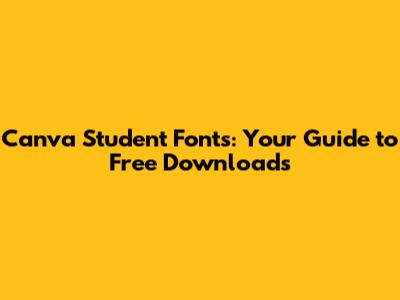
Hey guys! So, you're a student and you want to jazz up your projects with some killer fonts from Canva? You've come to the right place! Downloading fonts for Canva, especially when you're a student looking to save some cash, can seem a bit tricky. But don't sweat it! We're going to dive deep into how you can find and use awesome fonts to make your presentations, posters, social media graphics, and pretty much anything else you can dream up, look absolutely pro. We'll cover where to find those student-friendly options, how to download them legally, and some tips on using them effectively. Get ready to boost your design game, because this is your ultimate guide to Canva student fonts.
Why Fonts Matter for Student Projects
Alright, let's talk about why picking the right font is such a big deal, especially for us students. Think about it – when you're creating a presentation, designing a club flyer, or even just making a cool Instagram post for a school event, the font you choose is one of the first things people notice. Canva student fonts can totally change the vibe of your project. A bold, impactful font might be perfect for a headline that needs to grab attention, while a clean, minimalist font could be ideal for body text to ensure readability. Using a variety of fonts correctly can add personality, professionalism, and visual interest, making your work stand out from the crowd. Imagine a history presentation with a fancy, old-timey font versus a science project with a sleek, modern typeface – the font instantly communicates something about the subject matter. It’s not just about looking pretty; it’s about effective communication. A poorly chosen font can make your text hard to read, distract from your message, or even give off the wrong impression. For example, using a super playful, script font for a serious academic paper is probably not the best move, right? On the other hand, a serious, stuffy font might not be what you want for a fun, creative project. Canva offers a huge library of fonts, and knowing how to navigate it to find those perfect student fonts can save you tons of time and effort. We're talking about fonts that are versatile, stylish, and, most importantly, help you tell your story more effectively. So, let's get into how you can leverage these design elements to make your student work shine.
Finding Free Fonts in Canva for Students
Now, the big question: where do you find these awesome Canva student fonts? The great news is that Canva has a massive library of free fonts that are accessible to everyone, including students. You don't always need a premium account to access the good stuff! When you're in the Canva editor, look for the 'Text' tab on the left-hand side. Click on that, and you'll see a bunch of default text options. Click on one, and then a font dropdown menu will appear at the top of the editor. This is your gateway to hundreds, if not thousands, of fonts. You'll see a search bar here too, which is super handy. You can type in keywords like 'modern', 'script', 'bold', 'playful', or even specific font names if you know them. What's really cool is that Canva often categorizes fonts or gives you suggestions based on your search. For students, focus on fonts that are clear and readable, especially for academic work. Look for sans-serif fonts (like Arial, Lato, Montserrat) for a clean, modern look, or serif fonts (like Times New Roman, Georgia) if you want a more traditional or sophisticated feel. Script fonts can be great for titles or accents, but use them sparingly for body text as they can be hard to read. Keep an eye out for the 'free' label on fonts – most of the ones you see will be available to you without any extra cost. While Canva Pro does unlock even more fonts, the free library is incredibly robust and more than enough for most student projects. Experiment! Click through different fonts, see how they look with your text, and don't be afraid to try something a little different. The key is to explore the options available directly within Canva first, as they are already optimized for use on the platform and generally have broader licensing for personal and educational use. Remember, the goal is to find fonts that enhance your message, not distract from it. So, start clicking, searching, and exploring – your perfect font is waiting!
How to Download and Upload Fonts to Canva (Legally!)
Okay, so you've found some amazing fonts outside of Canva that you absolutely need to use. Maybe you found a cool free font on Google Fonts, Font Squirrel, or DaFont. The crucial part here is understanding how to download fonts for Canva and upload them legally. Most free font sites offer fonts under licenses that allow for personal and sometimes even commercial use, but it's always essential to check the specific license agreement for each font. For students, you're usually safe with fonts licensed for personal use, which covers your school projects. When you download a font from an external site, it typically comes as a .zip file. You'll need to extract this file to get the actual font file, which is usually a .ttf (TrueType Font) or .otf (OpenType Font) file. Now, here's where it gets interesting: Canva offers a way to upload your own fonts, but this feature is primarily available for Canva Pro users. Yes, you read that right. If you're on the free Canva plan, you can't directly upload custom fonts. However, don't despair! There are workarounds, and more importantly, you can use the vast library of free fonts that Canva already provides. If you do have Canva Pro, here's the magic: Go to your Brand Kit. You'll see an option to 'Upload a Brand'. Click on that, and you can upload your font files (.ttf, .otf, .woff). They'll then be available in your font selection menu whenever you're designing. For those on the free plan, focus your energy on finding the best free fonts within Canva's library. Seriously, it's massive! You can search by style, theme, or keyword and find incredible options. If a specific project absolutely requires a font not available in Canva, and you have Canva Pro, then uploading is your route. But for 99% of student needs, the built-in free library is your best friend. Always prioritize using Canva's integrated fonts to ensure you're compliant with licensing and to keep things simple. If you're ever unsure about a font's license, it's better to stick with Canva's provided options to avoid any potential issues.
Popular Font Categories for Student Designs
Let's dive into some of the coolest font categories that are perfect for Canva student fonts and will make your projects pop! When you're browsing Canva, or even when you're looking for external fonts to potentially upload (if you have Pro), thinking in categories can really speed up your search and help you find the perfect vibe.
Modern & Minimalist Fonts
If you want your designs to scream sleek, clean, and sophisticated, then modern and minimalist fonts are your go-to. These fonts typically feature clean lines, simple shapes, and a lack of unnecessary embellishments. Think sans-serif styles like Montserrat, Lato, Open Sans, Poppins, and Raleway. These are fantastic for presentations where readability is key, for websites, or for any design that needs to convey a sense of professionalism and order. They work beautifully for academic papers, reports, or even just clean-looking social media graphics. Montserrat, for example, is a geometric sans-serif that feels very contemporary and friendly. Lato is another excellent choice, known for its warm and semi-rounded feel, making it highly legible. Poppins is also super popular, offering a geometric design that's both modern and approachable. Using these fonts ensures your message is clear and easily digestible, which is super important when you're trying to get your point across in a busy academic environment. They pair well with almost anything and provide a solid foundation for your design. Don't underestimate the power of simplicity; these fonts can make your work look incredibly polished with minimal fuss.
Playful & Fun Fonts
Need to inject some personality and energy into your projects? Playful and fun fonts are where it's at! These are your go-to for event posters, club announcements, creative writing projects, or anything that needs to feel energetic and engaging. Look for fonts with unique character, maybe a slightly quirky shape, or a handwritten feel. Examples in Canva might include things like Lobster, Pacifico, Fredoka One, or Chewy. Lobster and Pacifico are classic script fonts that add a touch of retro flair and are great for headlines or short, catchy phrases. Fredoka One is a rounded, bold sans-serif that feels chunky and fun, perfect for grabbing attention. Chewy has a distinctive, almost comic-book style that’s super energetic. When using these, the trick is to balance them with a more neutral font for any accompanying text to maintain readability. Imagine using a bold, playful font for the title of a school play poster, and then a simple sans-serif font for the performance details. This contrast makes the title pop while ensuring all the important information is clear. These fonts are fantastic for making your designs feel approachable and exciting, really capturing the spirit of fun events or creative endeavors.
Elegant & Script Fonts
For those moments when you need a touch of class and sophistication, elegant and script fonts are the answer. These fonts mimic handwriting and can add a really personal, refined touch to your designs. They are perfect for invitations, formal announcements, certificates, or adding a decorative flourish to a design. Think of fonts like Great Vibes, Dancing Script, Allura, or Parisienne. Great Vibes is a beautiful, flowing script that feels very romantic and elegant. Dancing Script is a bit more casual but still maintains a lovely handwritten charm. Allura is another sophisticated option with graceful strokes. Parisienne has a distinctively French, chic feel. When using these Canva student fonts, remember they are best used as accent fonts – for titles, names, or short quotes. Using a script font for large blocks of text can be incredibly difficult to read and might look cluttered. The key is to pair them strategically with a clean, simple font (like a basic sans-serif or serif) that provides contrast and ensures the main message is easily understood. They can elevate a design from ordinary to extraordinary, giving it that special, high-end feel without breaking the bank, especially when sourced from Canva's free offerings.
Tips for Using Fonts Effectively in Canva
Now that you know where to find and how to use Canva student fonts, let's talk about making them work for you. Effective font usage is all about making your designs clear, engaging, and aesthetically pleasing. It’s not just about picking pretty letters; it’s about communicating your message powerfully. So, guys, here are some golden tips to elevate your designs using fonts in Canva.
Font Pairing: The Art of Combination
One of the most crucial skills in design is font pairing. This is the art of combining two or more fonts in a single design to create visual interest and enhance readability. The general rule of thumb is to pair a contrast font with a complementary font. A classic pairing is a serif font with a sans-serif font. For instance, use a strong serif font (like Georgia or Merriweather) for your headlines and a clean sans-serif font (like Open Sans or Lato) for your body text. This creates a hierarchy and makes it easy for the reader to distinguish between different types of information. Another approach is to pair a decorative or script font for a headline with a simple, neutral font for the rest of the text. The key is to ensure the fonts don't clash. They should work together harmoniously, with one font taking the lead (usually for headlines) and the other supporting it (for body text). Canva makes this easy by suggesting font pairings in the editor sometimes, or you can look at their templates for inspiration. Experiment by trying different combinations within the editor. See how a bold display font looks next to a light, airy sans-serif. Remember, the goal is to create a balanced and readable design. Avoid using too many different fonts in one design – generally, two or three at most is best. Too many fonts can make your design look chaotic and unprofessional.